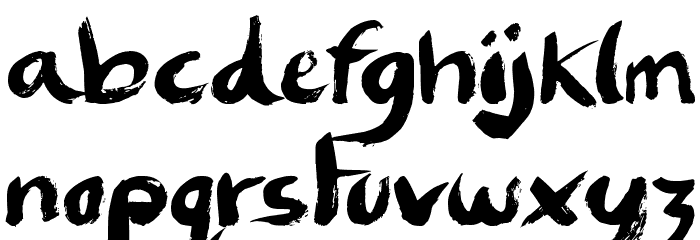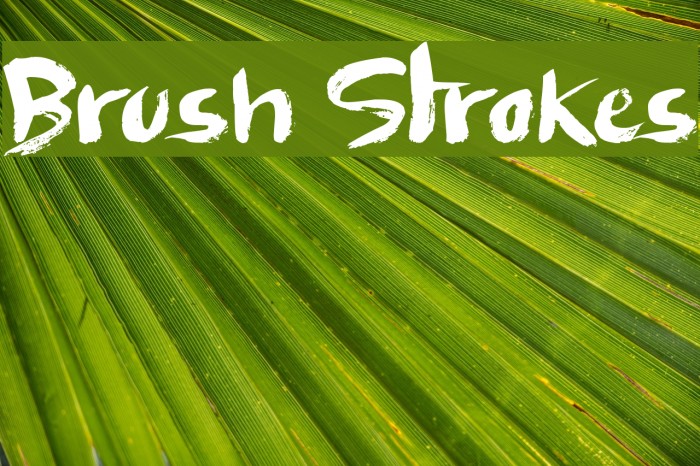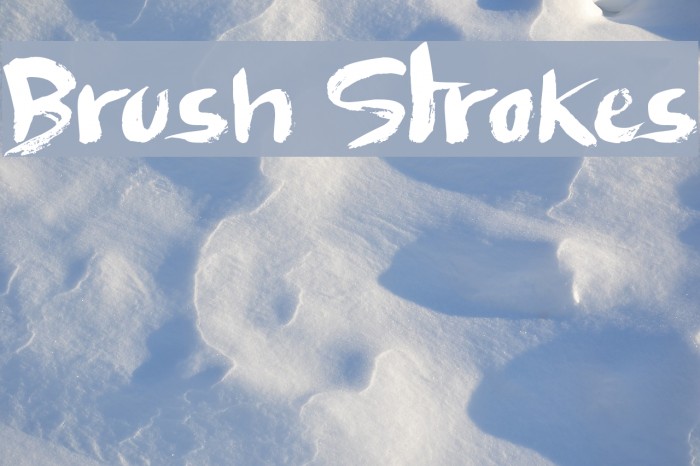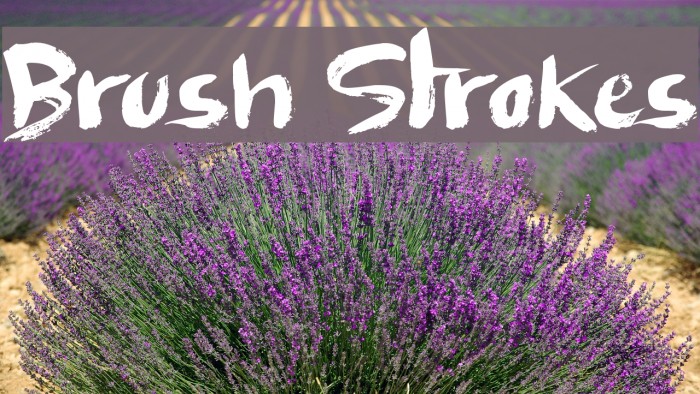
Brush Strokes Font
This font features a bold, expressive style reminiscent of brush strokes, giving it a dynamic and artistic appearance. The characters are irregular and varied, with a hand-painted look that conveys energy and creativity. The uppercase and lowercase letters maintain a consistent style, with thick and thin strokes that mimic the natural flow of a brush. The numbers and special characters are designed to match the overall aesthetic, providing a cohesive look across all elements. This font is ideal for projects that require a personal touch or an artistic flair, such as posters, invitations, or branding materials.
A bold, brush-stroke style font with an artistic and dynamic appearance.
- Proposed Projects: Ideal for artistic projects, posters, invitations, and branding materials that require a personal touch.
- Overall Style: Artistic, Dynamic
- Use Case: Headlines, Logos, Artistic projects